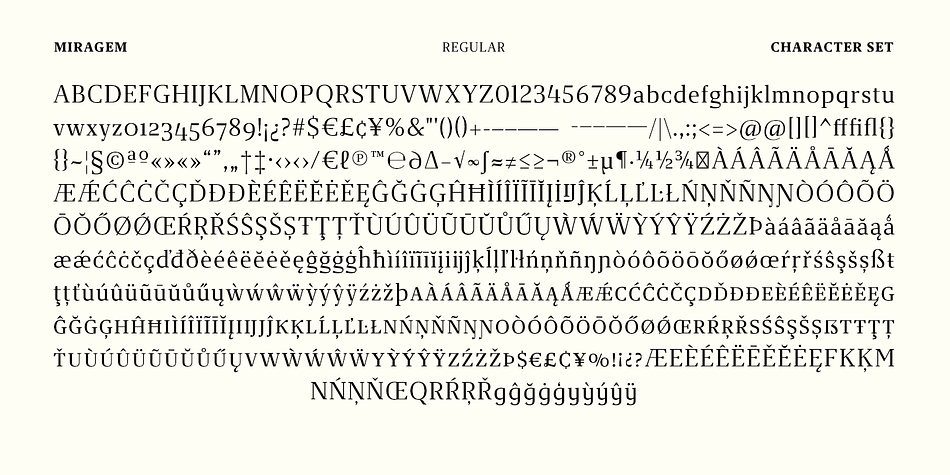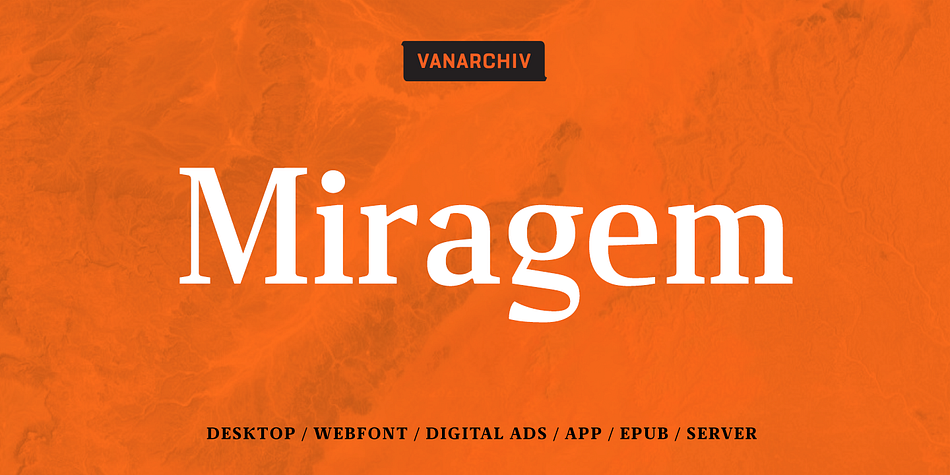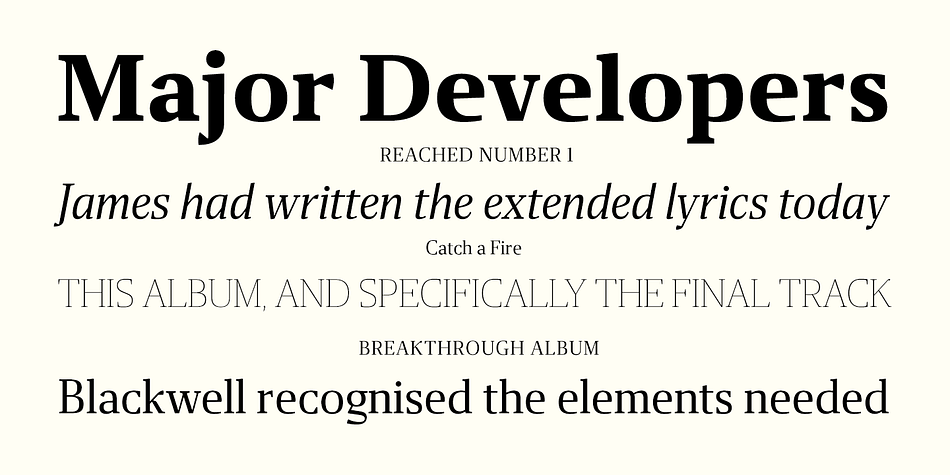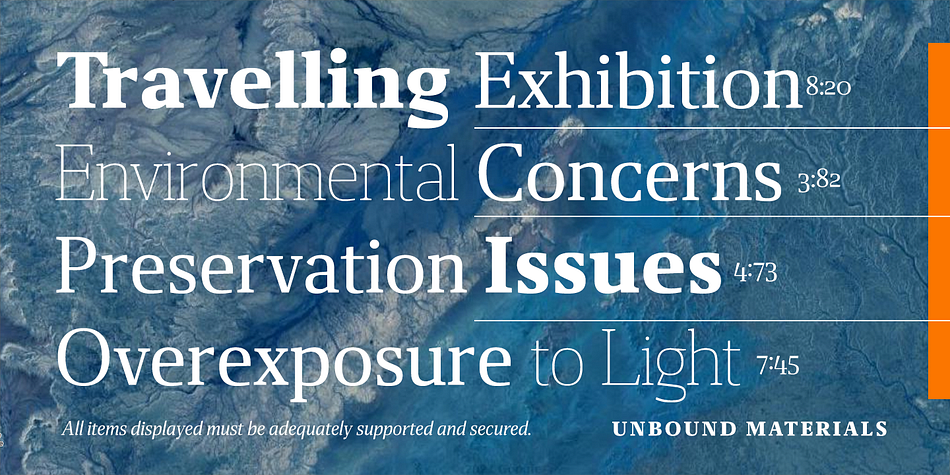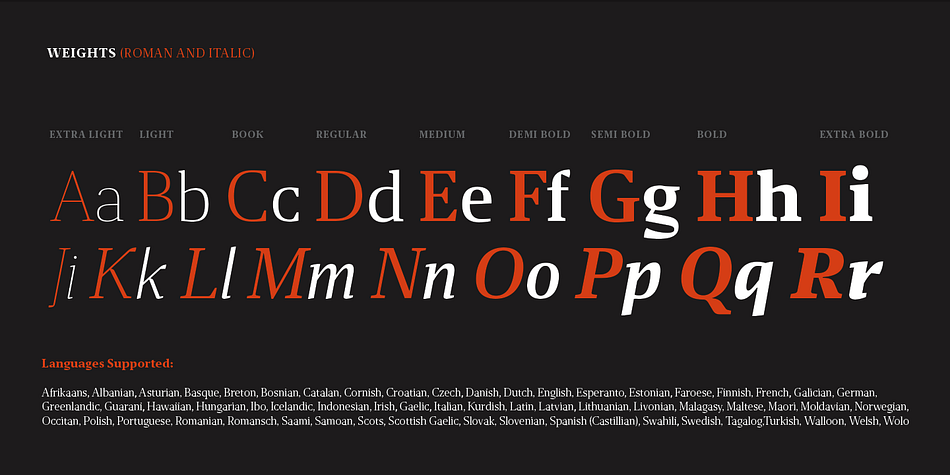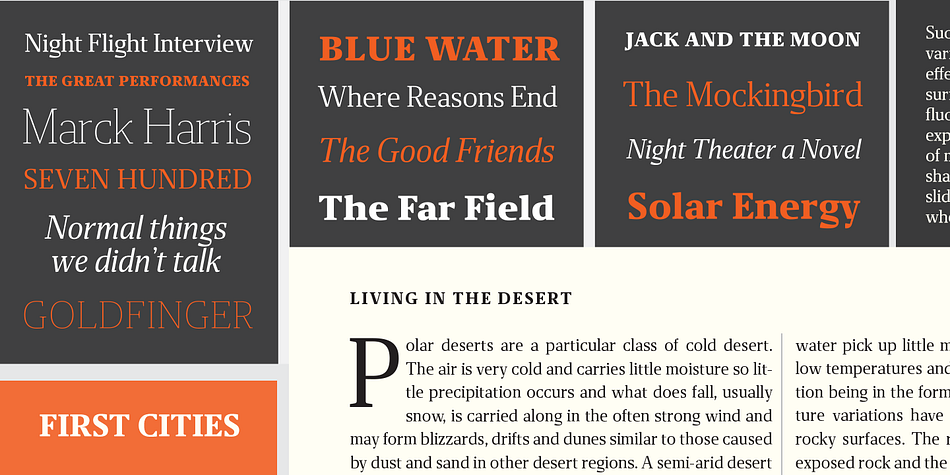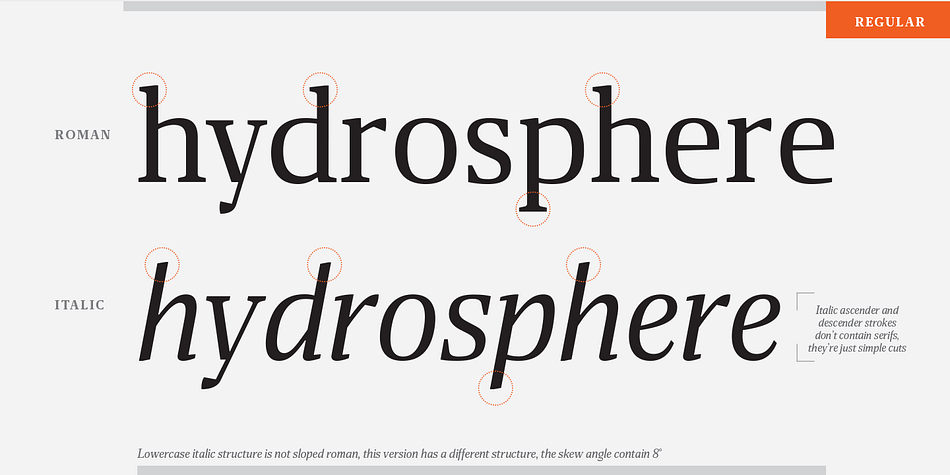
Designed by Ricardo Santos, Miragem is a serif font family. This typeface has eighteen styles and was published by Vanarchiv.
This serif typeface was designed to be simple and neutral on text sizes, there descender proportions are short and the x-height is large. The loop form from the lowercase (g) is open which give more personality to this particular letterform. The lowercase italics contain different structure from roman characters, but the most differentiation detail is the fact the ascender and descender strokes don’t contain serifs. Italics characters are slightly more narrow and condensed than roman letterforms.